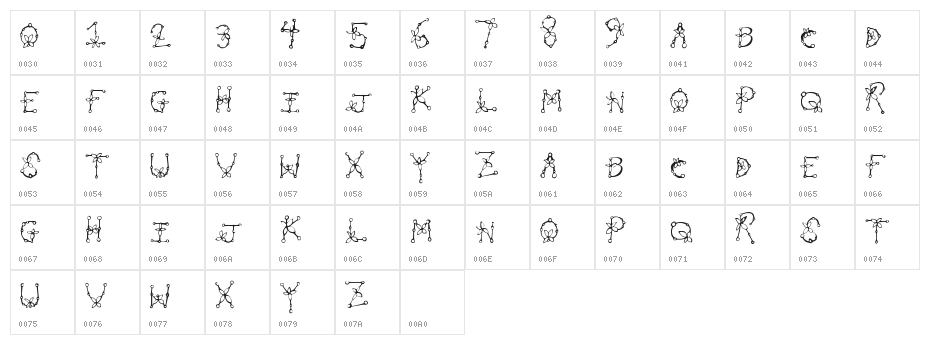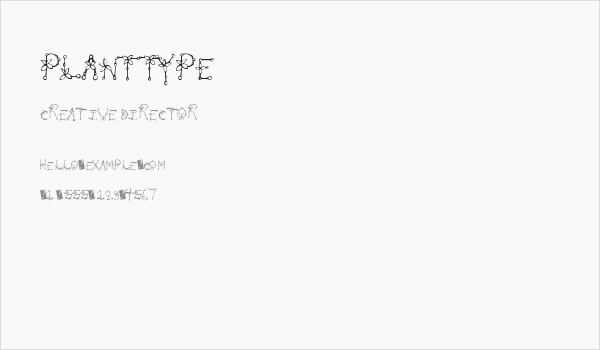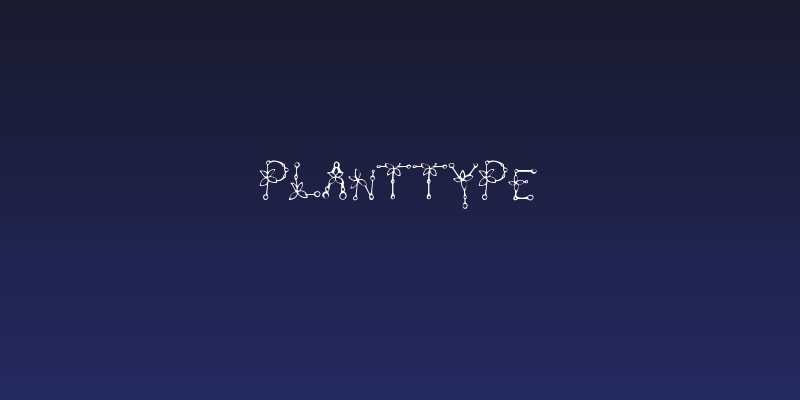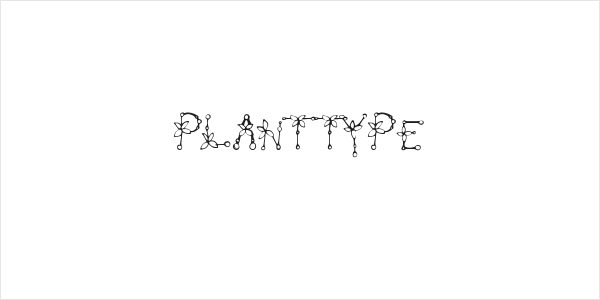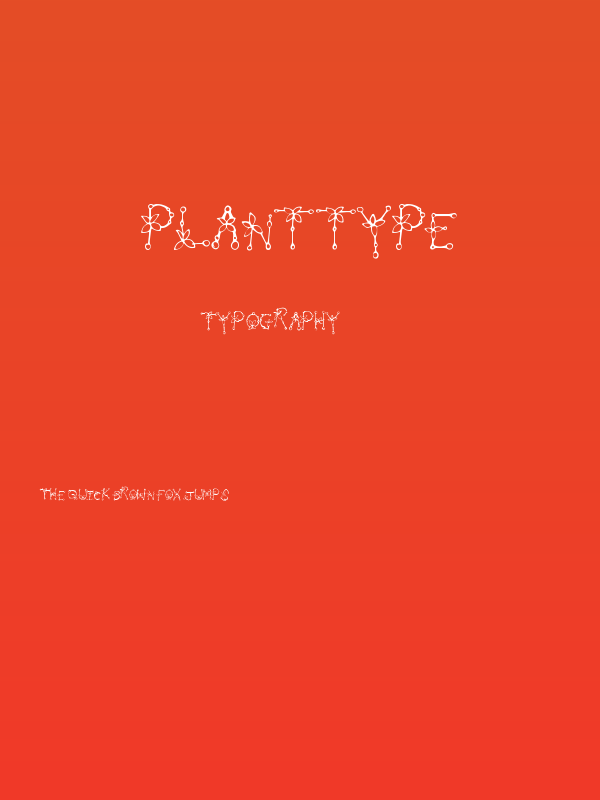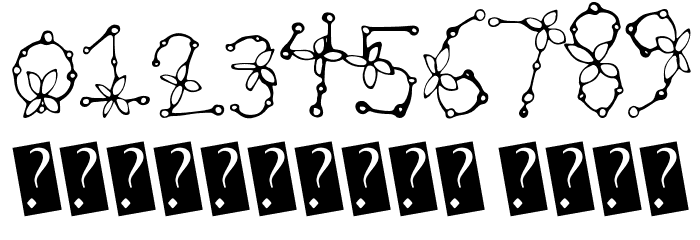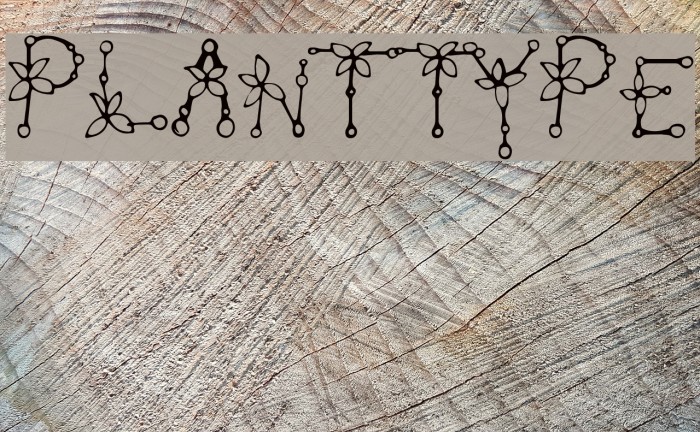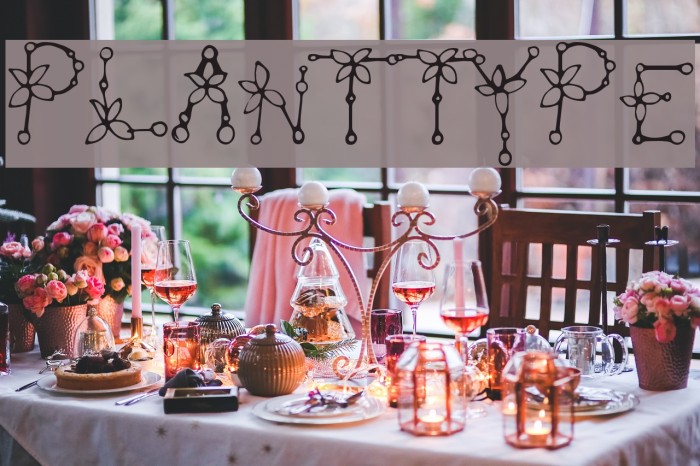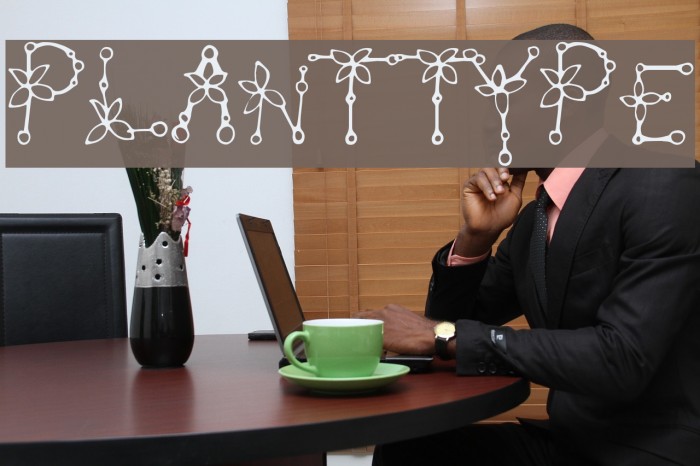
PlantType Font
PlantType Description
This font features a unique and playful design, incorporating elements that resemble plant stems and leaves. Each character is constructed with lines and dots that mimic the organic shapes found in nature, giving it a whimsical and decorative appearance. The letters are interconnected with delicate lines, creating a cohesive and flowing look. The font maintains a consistent style across uppercase, lowercase, and numeric characters, with special characters also following the same botanical theme. Its intricate design makes it stand out, ideal for projects that require a touch of nature-inspired creativity.
| Proposed Projects | Ideal for eco-friendly branding, garden-themed invitations, or nature-related product packaging. |